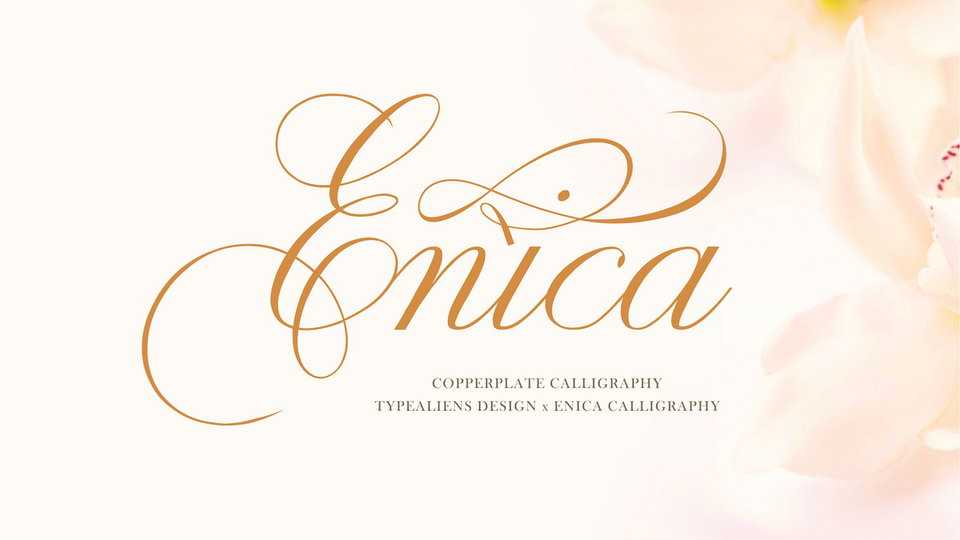
Download Enica font, an exquisite handwritten typeface, masterfully designed to become a true favorite. Enica maintains its classy calligraphic influences while feeling contemporary and fresh.
Designer: Typealiens